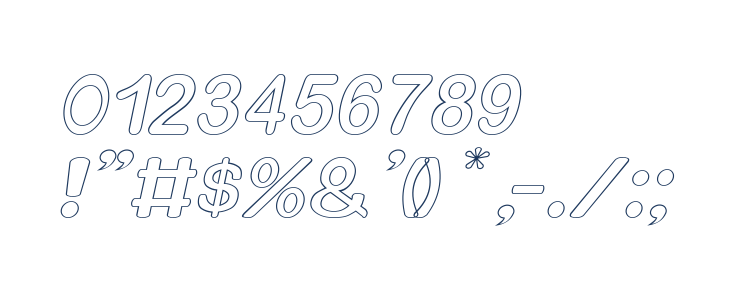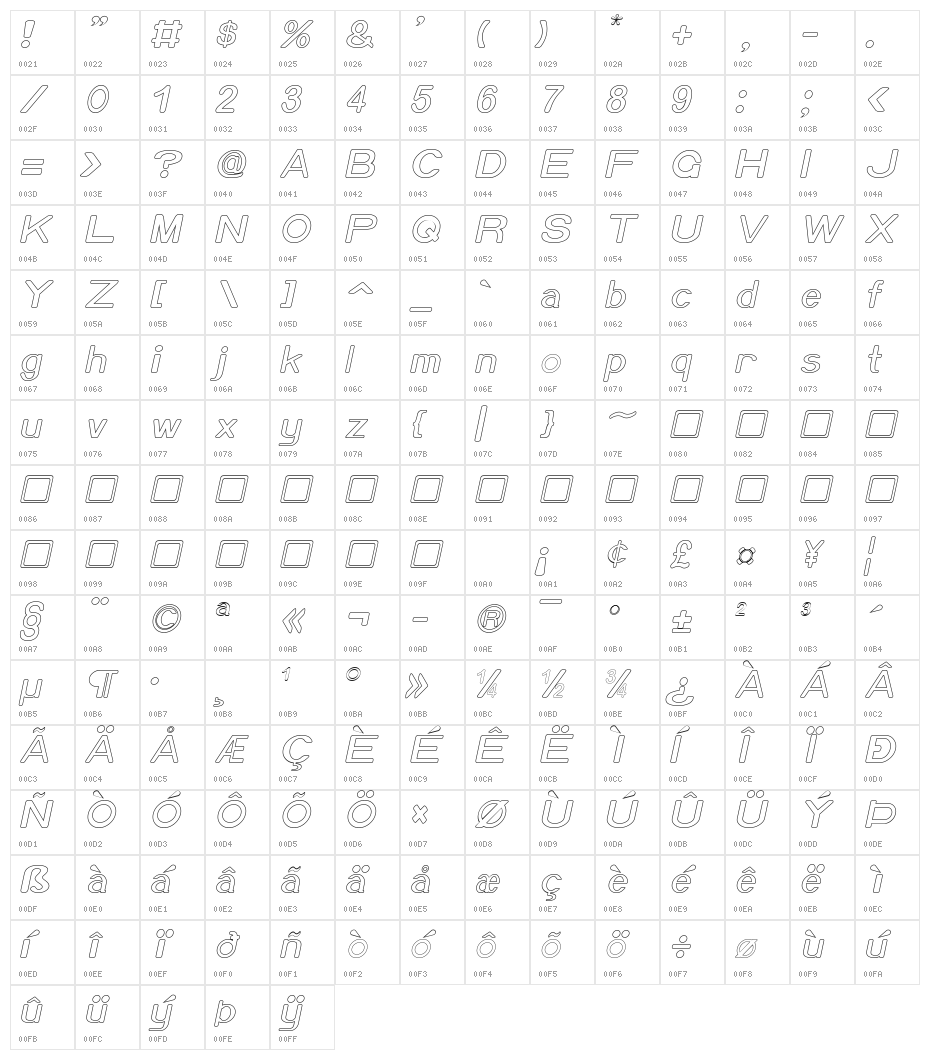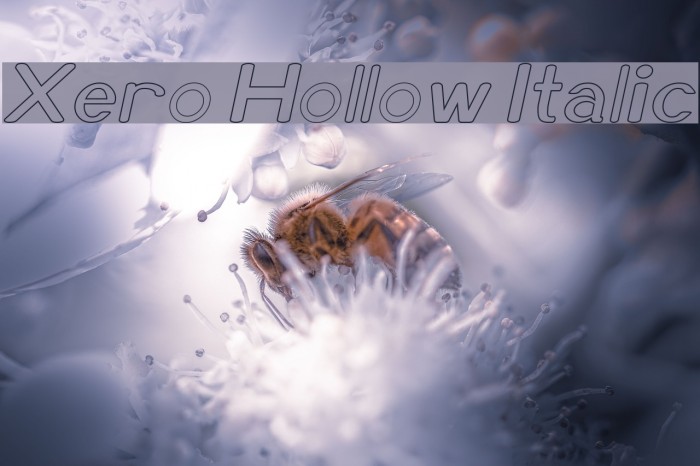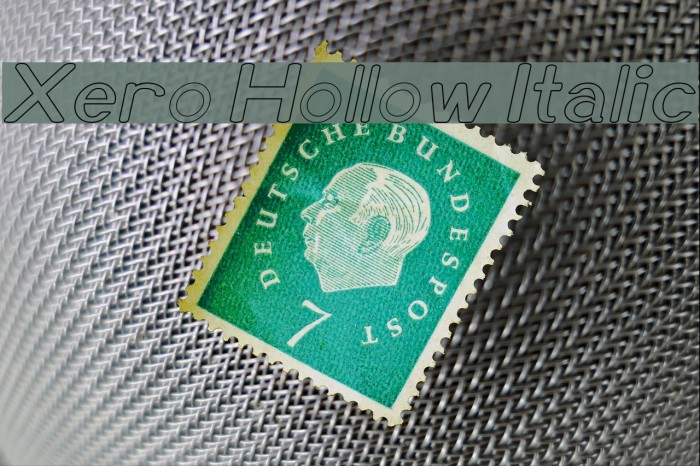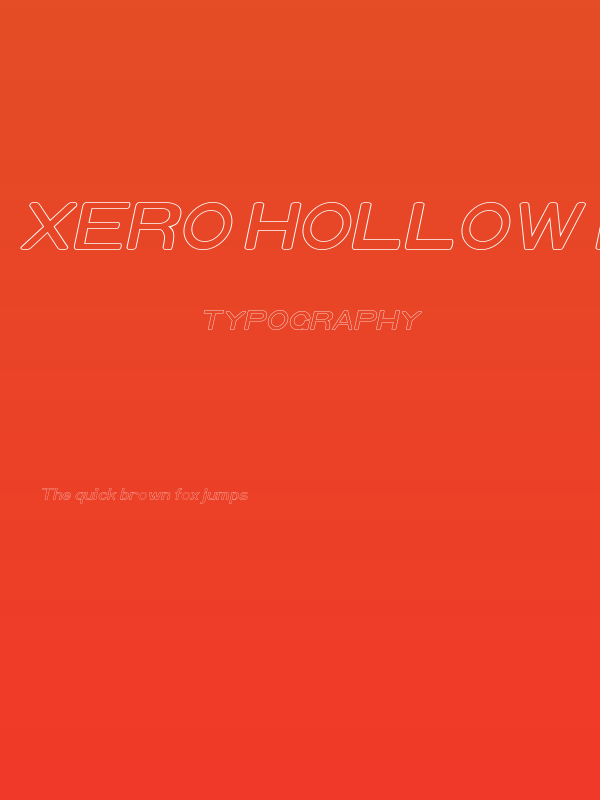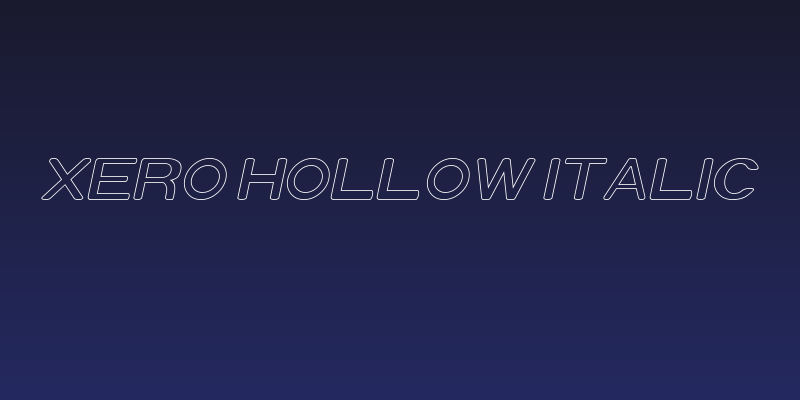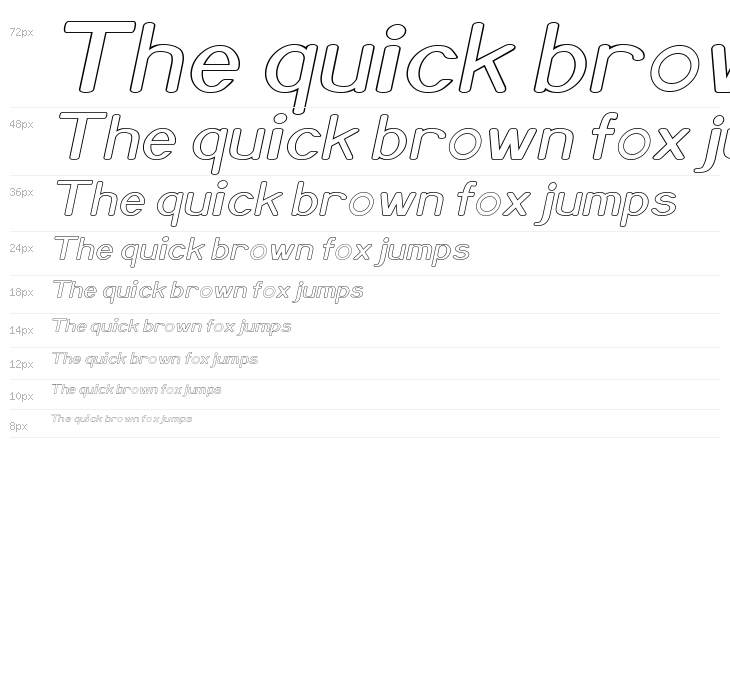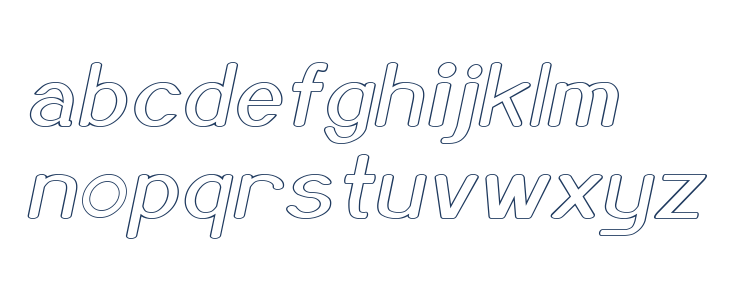
Xero Hollow Italic Font
Xero Hollow Italic Description
This font features a hollow, outlined design with a modern and sleek appearance. The characters are italicized, giving them a dynamic and forward-leaning posture. The uppercase and lowercase letters maintain a consistent style, with rounded edges and smooth curves. The numerals and special characters follow the same outlined aesthetic, ensuring uniformity across all glyphs. This font's hollow nature makes it ideal for overlaying on images or backgrounds where the content behind the text can be seen through the characters.
Proposed ProjectsIdeal for creative projects such as posters, logos, and digital artwork where a modern and transparent text effect is desired.